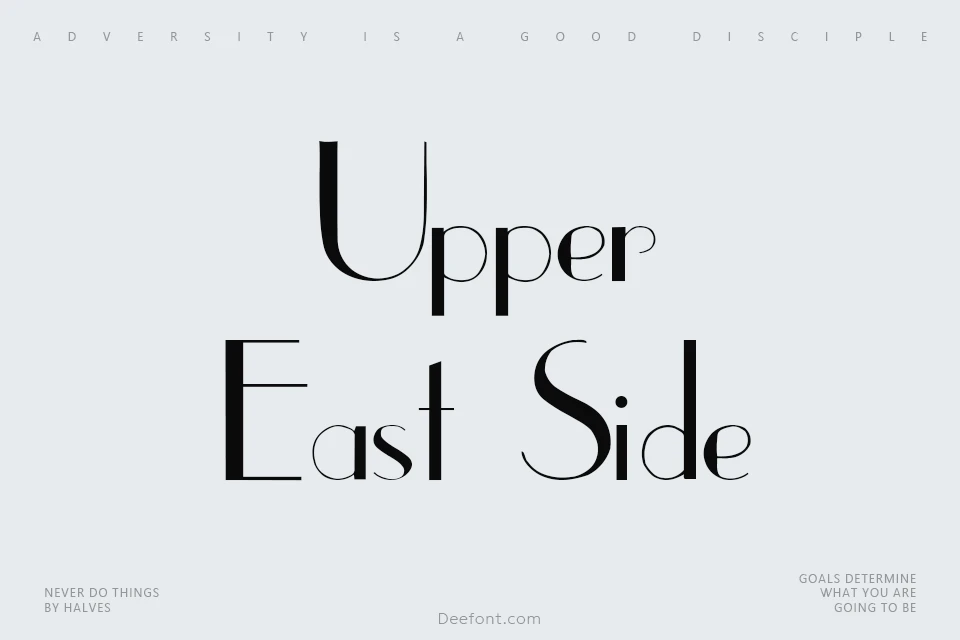
Upper East Side Font
Upper East Side Font is an elegant and sophisticated typeface designed by David Rakowski. This font features a distinctive blend of thick and thin strokes, creating a modern yet retro aesthetic. The character set includes both small and large uppercase alphabets, making it versatile for various design applications. Available as a TTF file for both MAC and PC platforms, Upper East Side embodies a fancy, decorative style that adds a touch of refinement to any project. This free font is perfect for personal and non-commercial use, offering designers a sophisticated typographic option that combines classic elegance with contemporary flair.